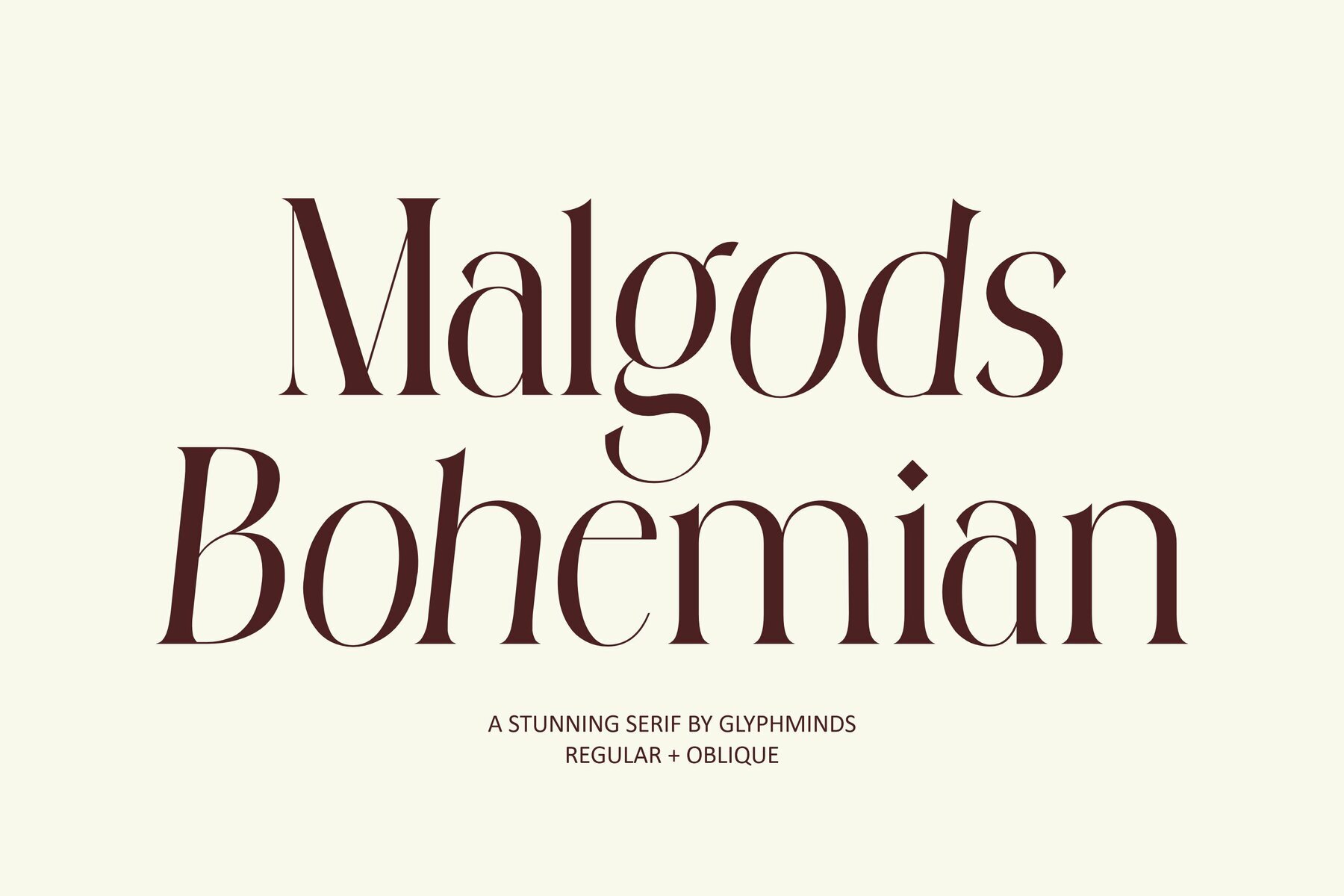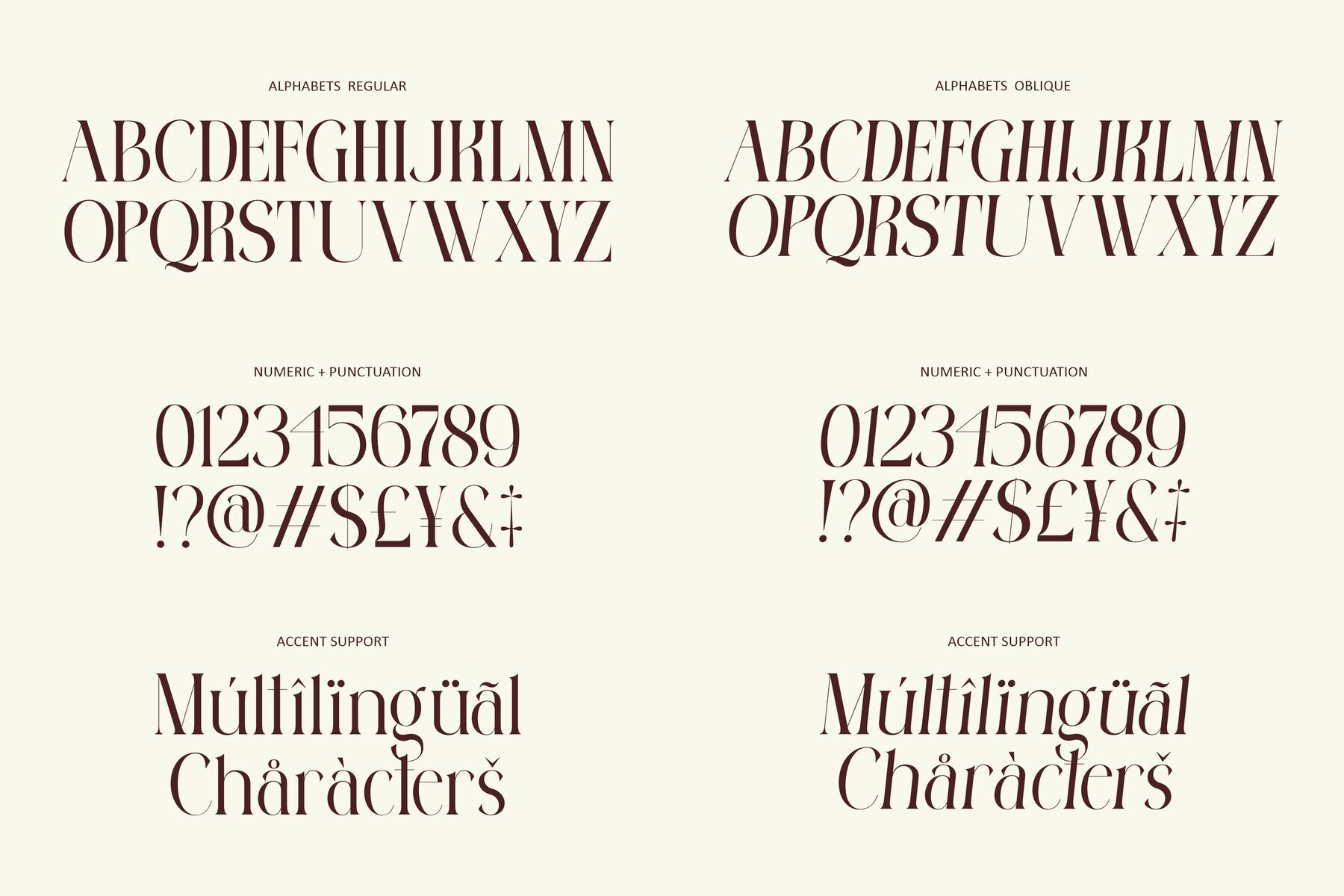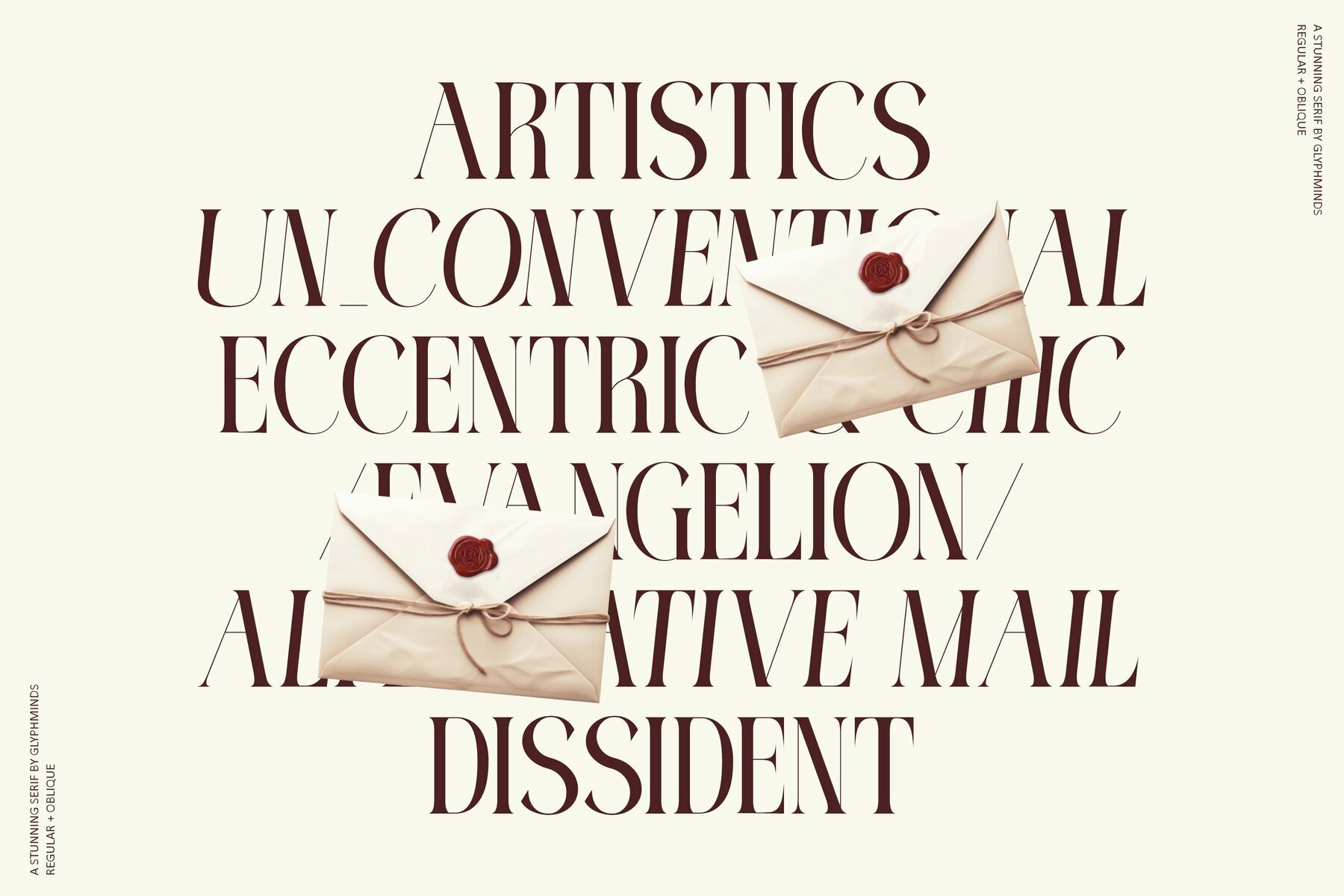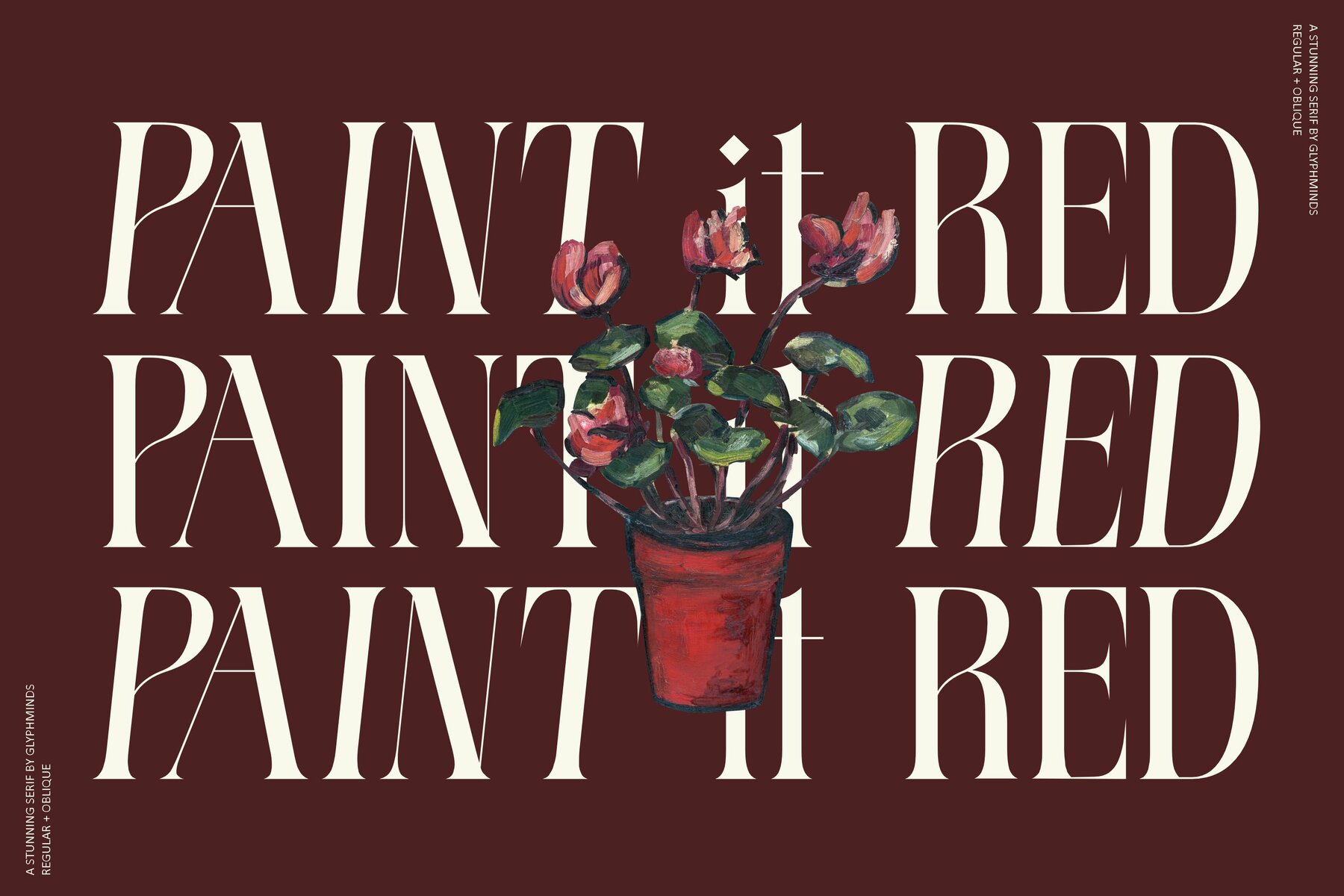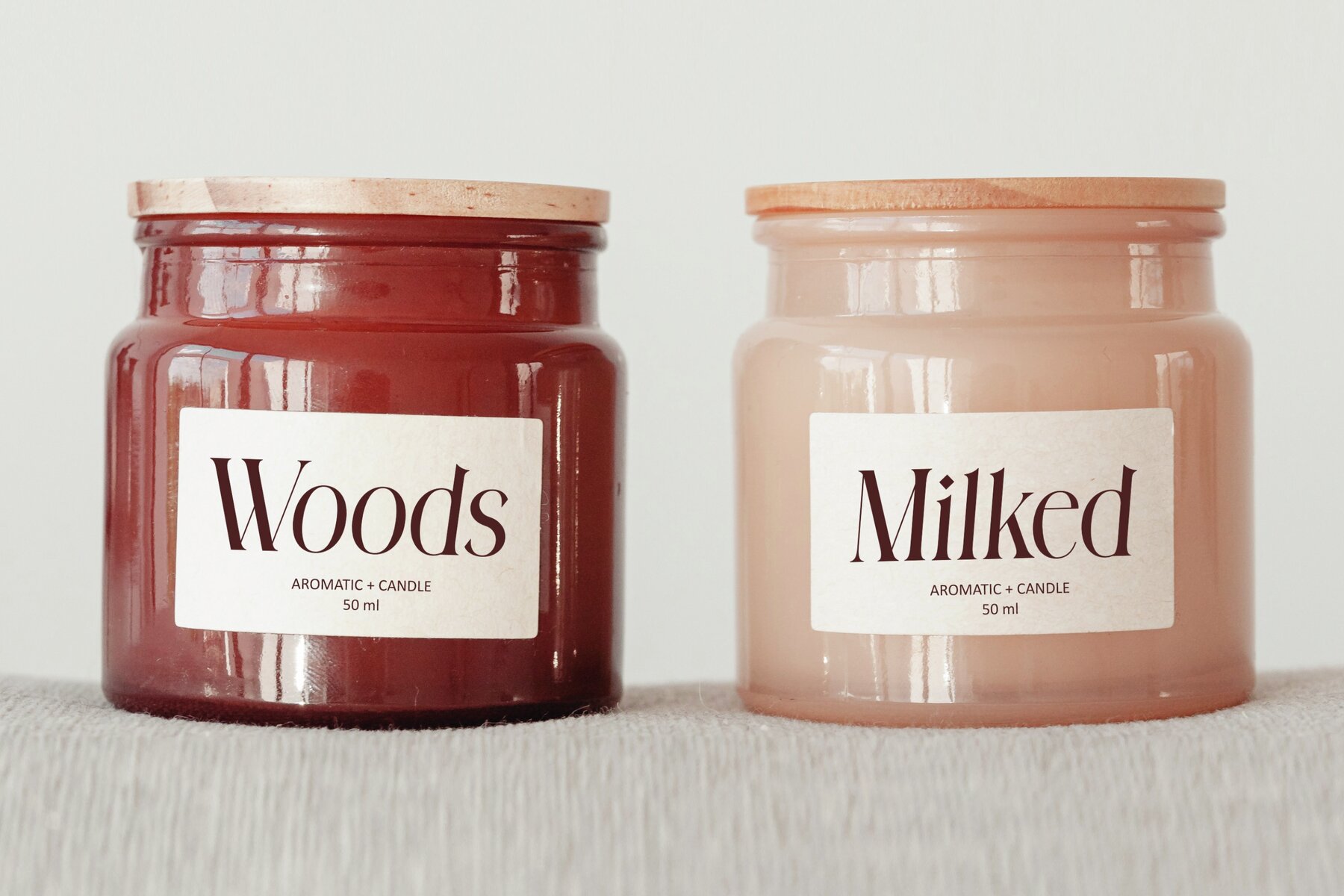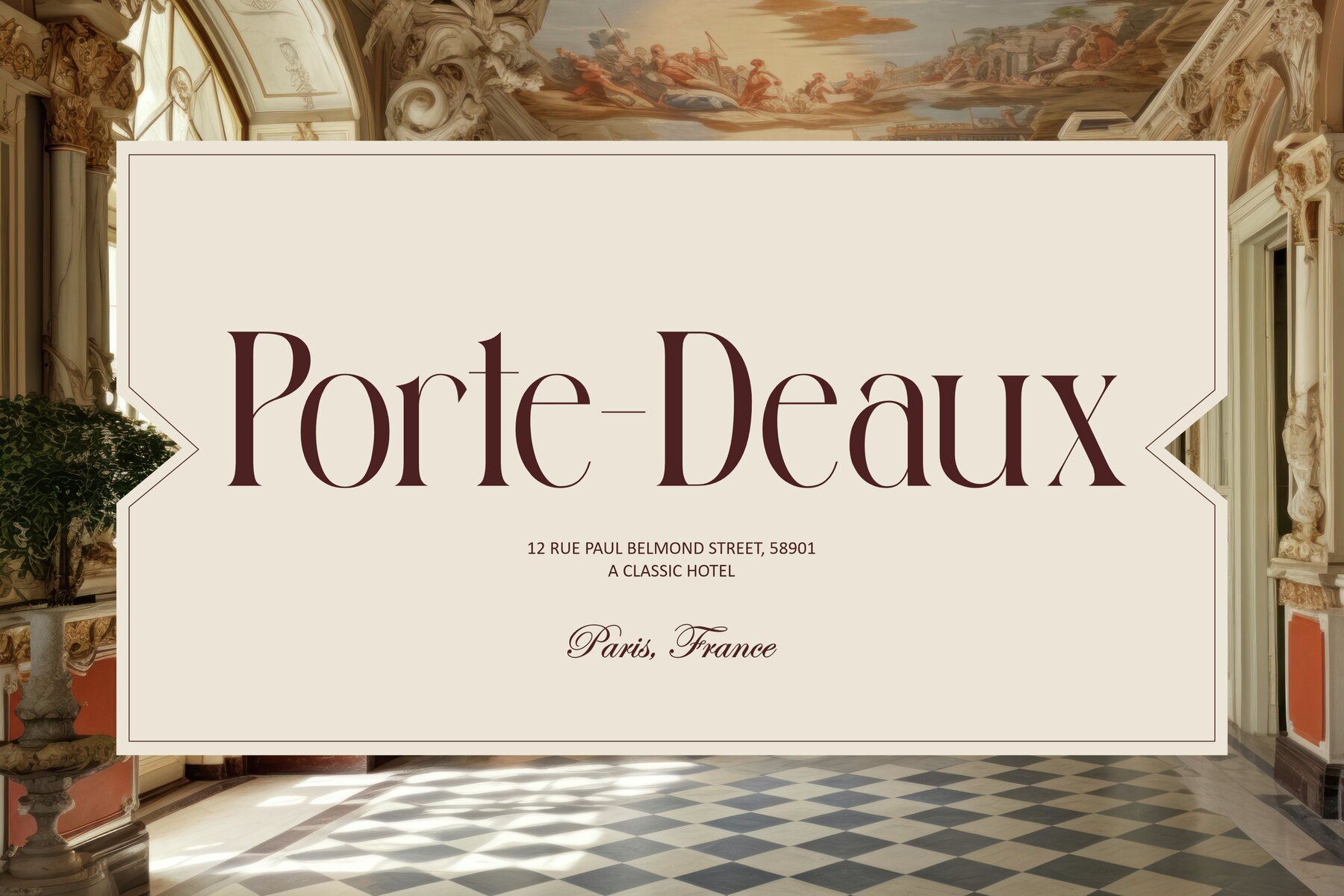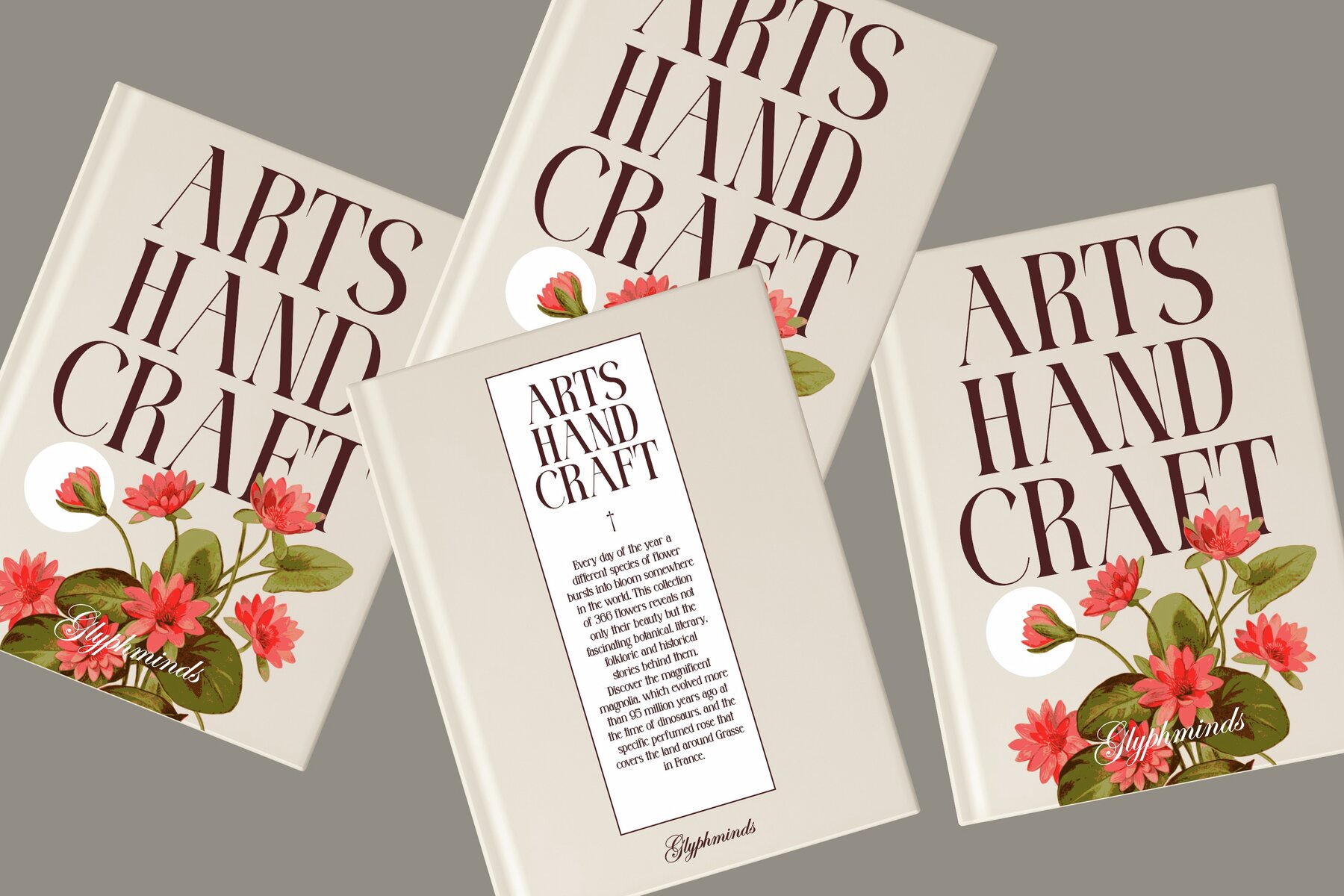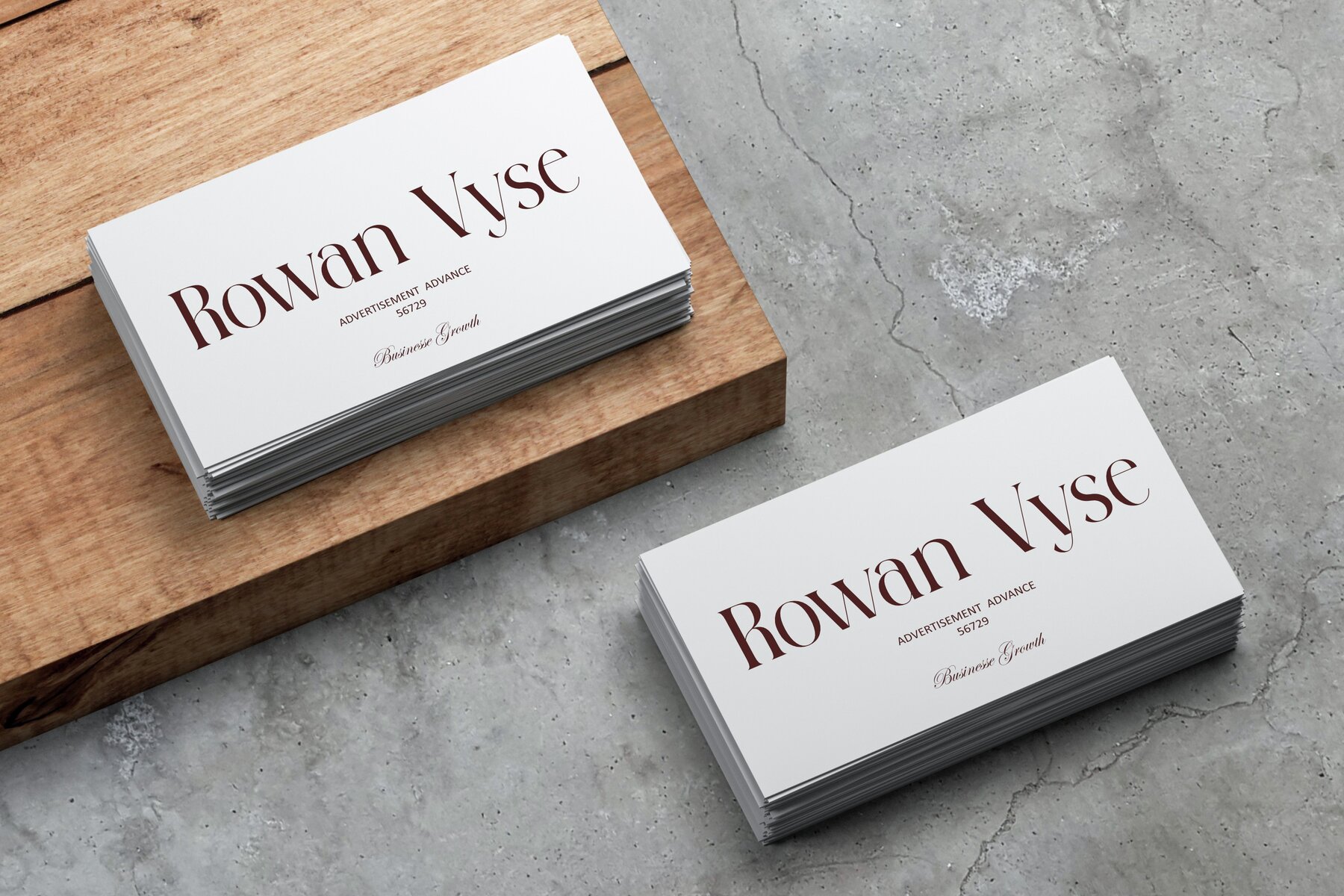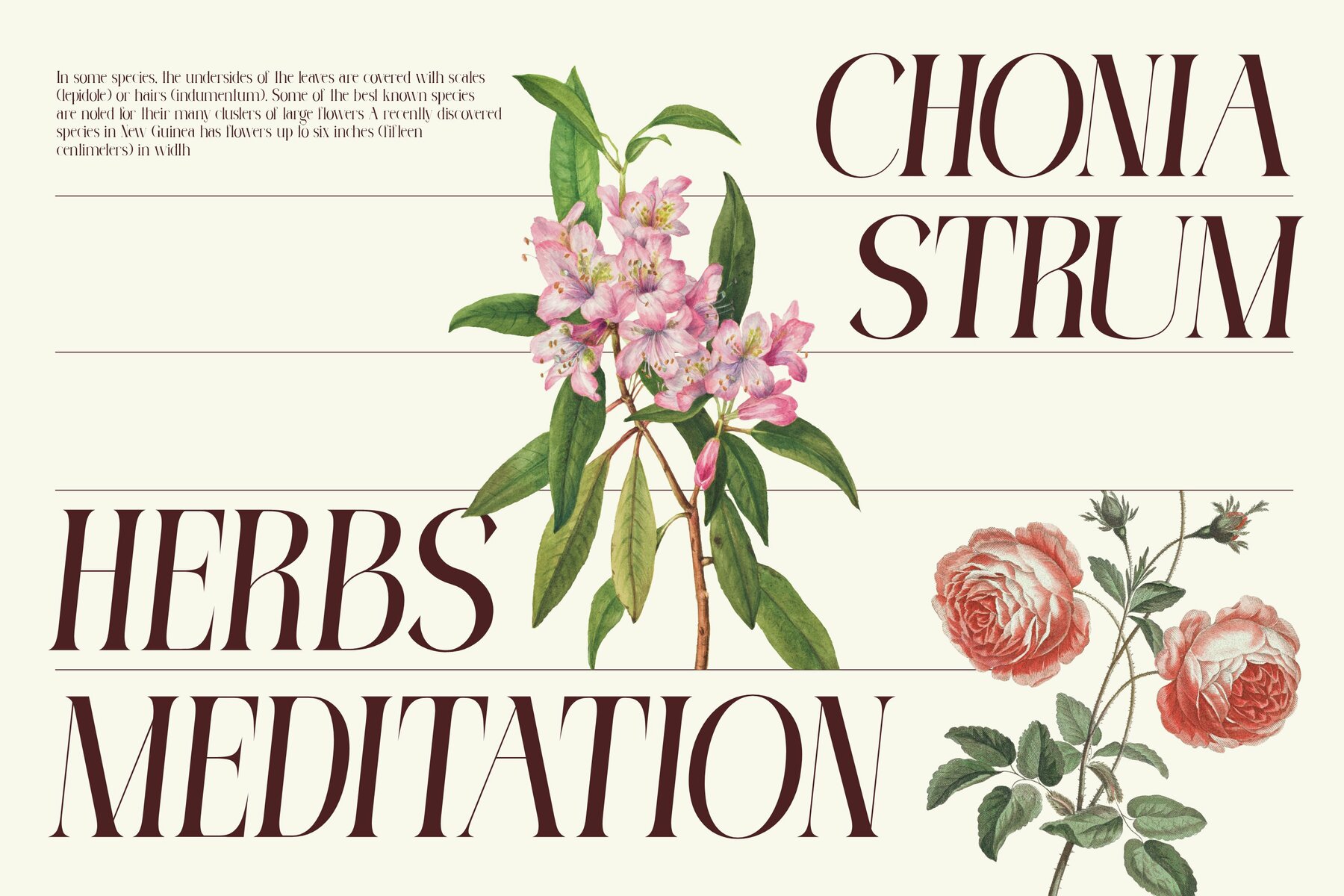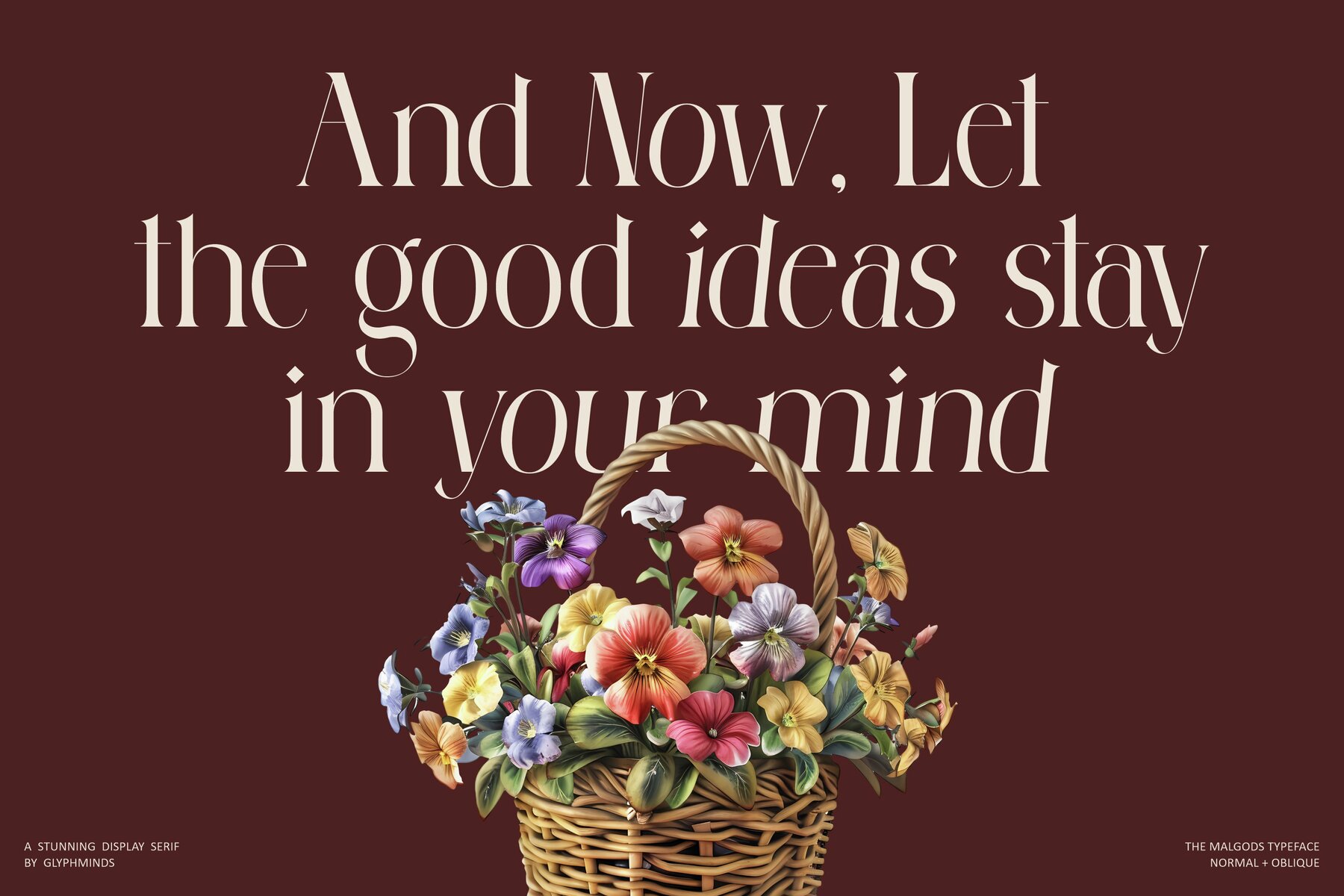
Malgods Bohemian Font
Malgods Bohemian is a captivating serif font that brings together classic elegance with a contemporary feel. This typeface is perfect for luxurious branding and sophisticated editorial layouts, making it a versatile choice for designers and creatives. Available in both regular and oblique versions, Malgods Bohemian offers flexibility, allowing you to craft unique and striking visuals that grab attention.
Ideal for those looking to make a lasting impression, this font adds a touch of timeless beauty to any project. Its refined design ensures that it enhances any design work without overpowering the content. Add Malgods Bohemian to your toolkit and watch your projects transform with its distinguished charm and style.